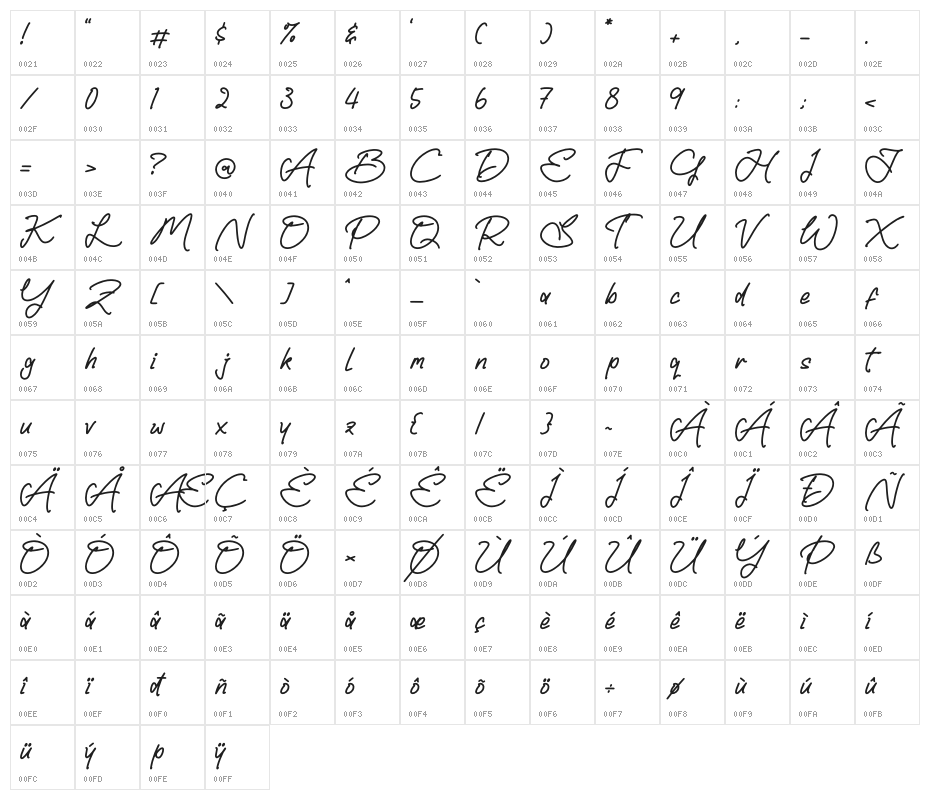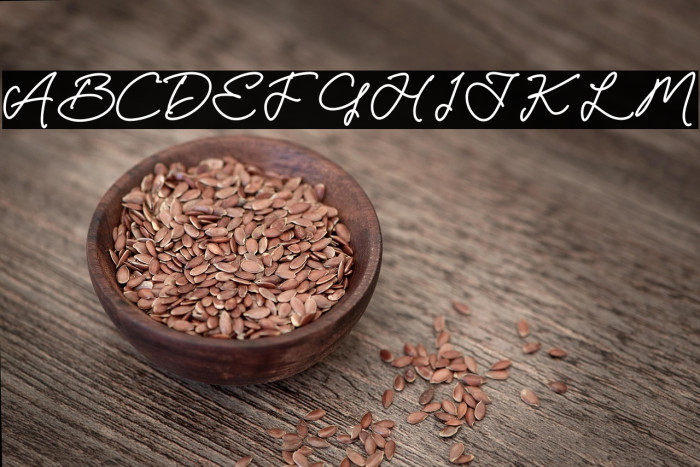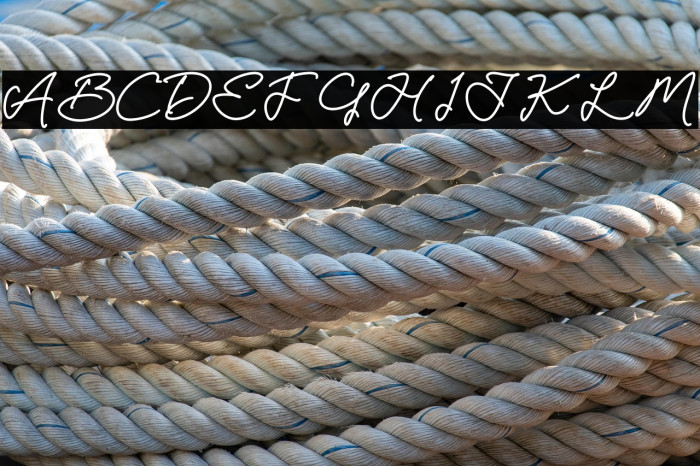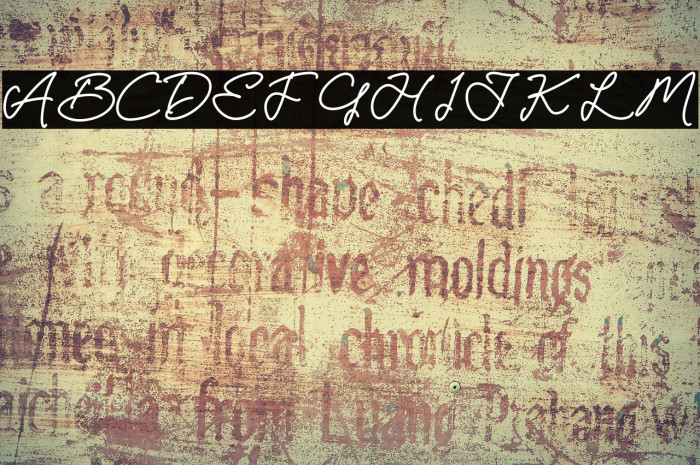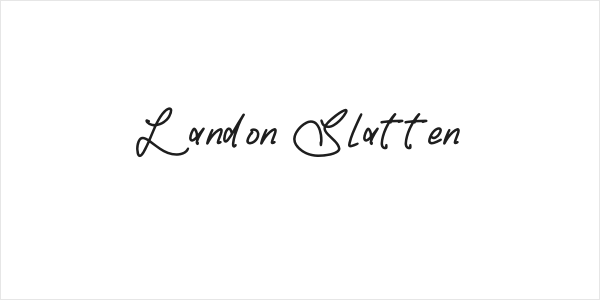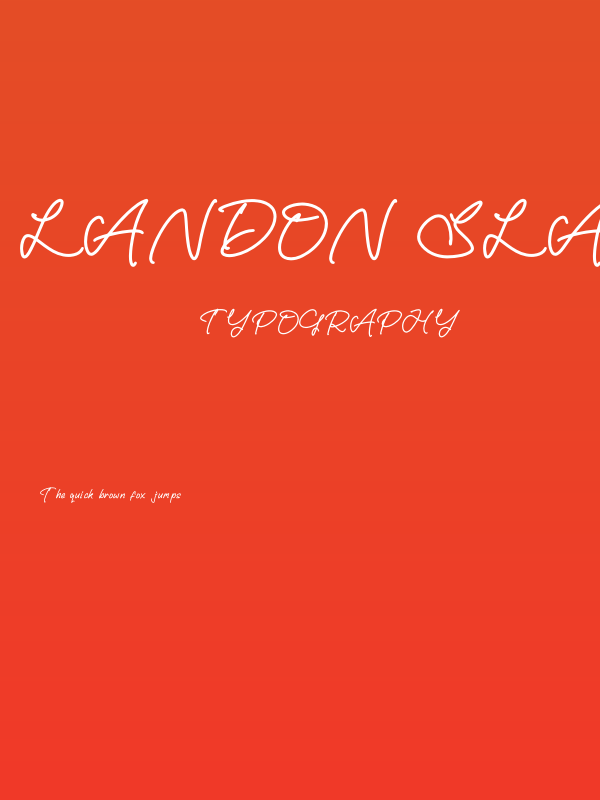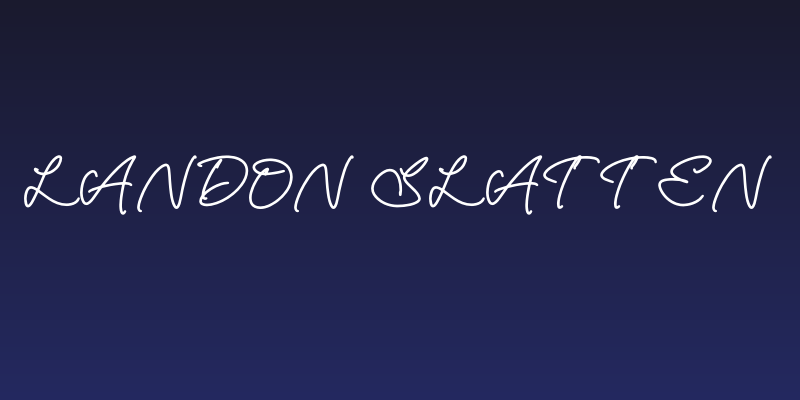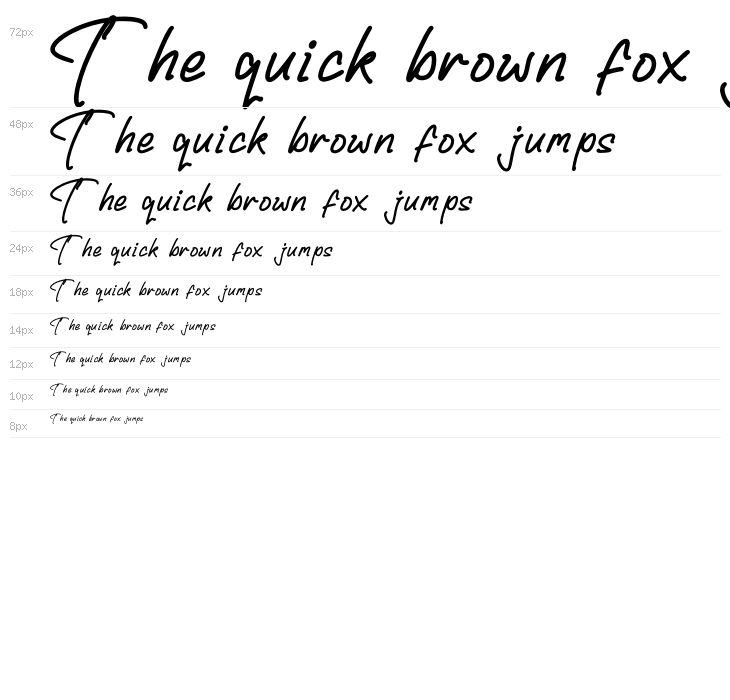
Landon Slatten Font
Landon Slatten Description
This font exudes a casual, handwritten style with a flowing, cursive appearance. The uppercase letters are elegantly connected, while the lowercase letters maintain a consistent, smooth flow. The numerals are distinct and easy to read, complementing the overall style. Special characters are creatively integrated, enhancing the font's versatility. The strokes are moderately thick, providing a balanced contrast that ensures readability without sacrificing style. This font is perfect for projects that require a personal touch, such as invitations, greeting cards, or branding materials.
| Overall Style | Casual, Elegant |
| Use Case | Invitations, Greeting cards, Personal branding |
| Proposed Projects | Ideal for invitations, greeting cards, personal branding, and creative projects requiring a personal touch. |